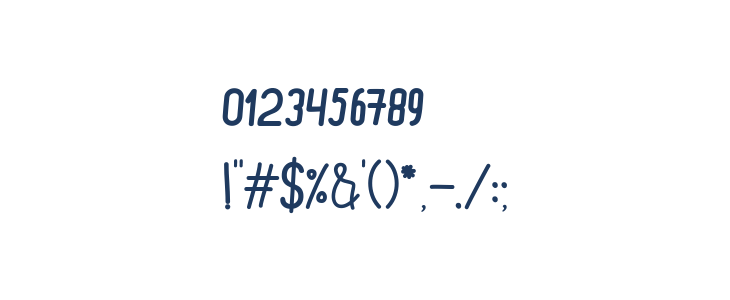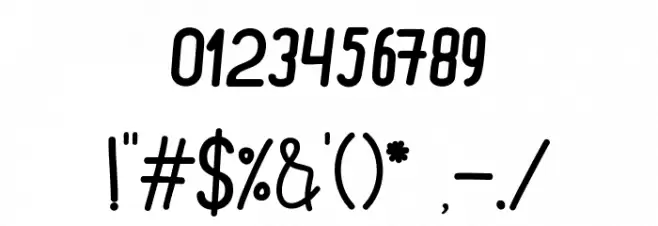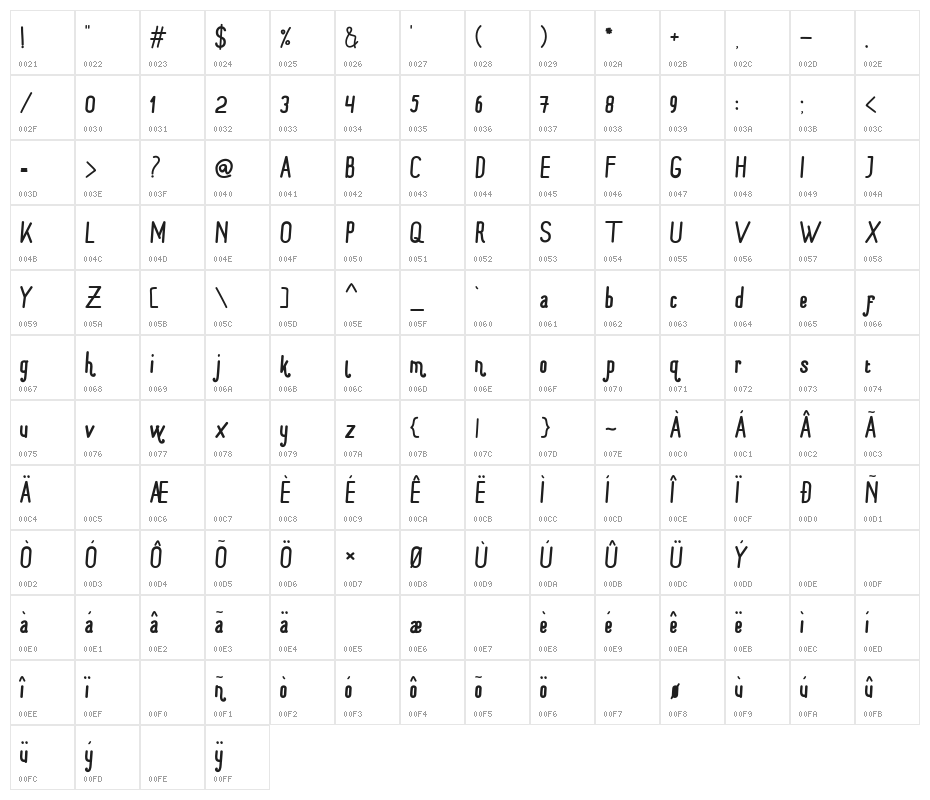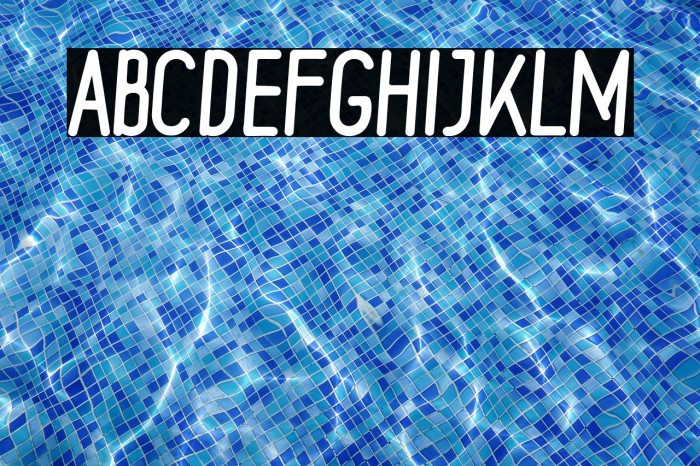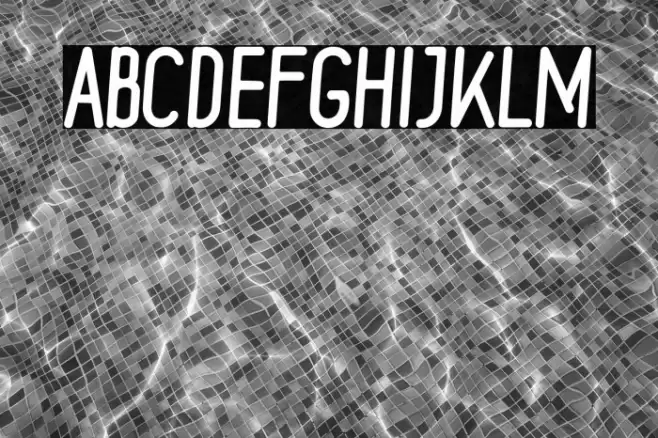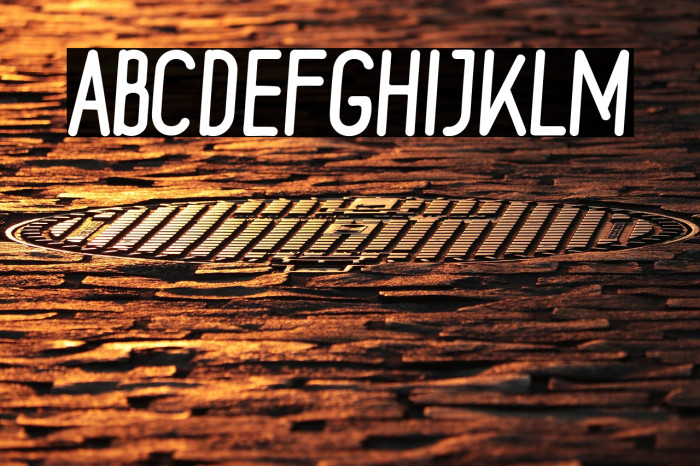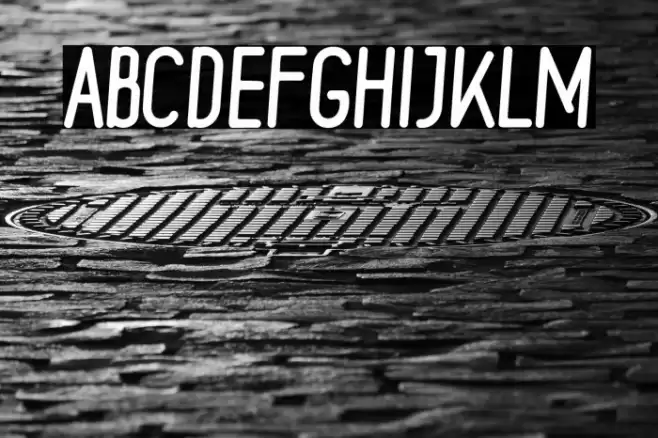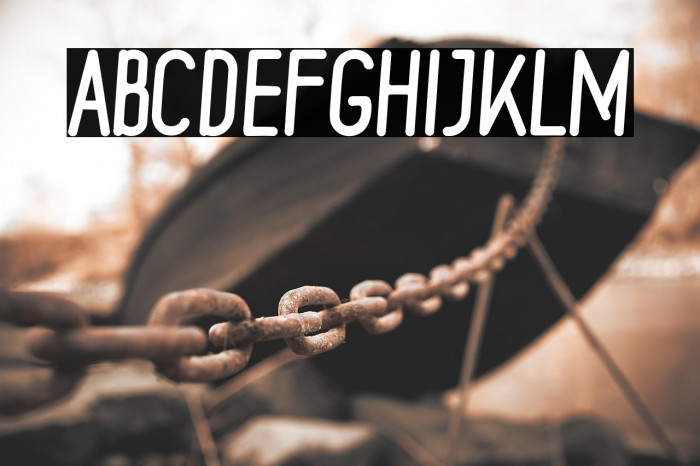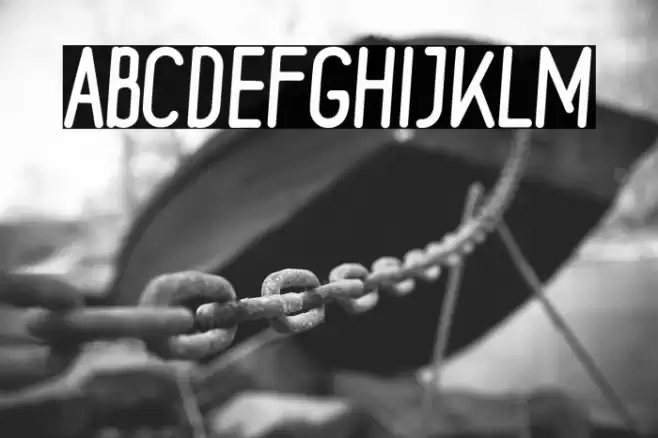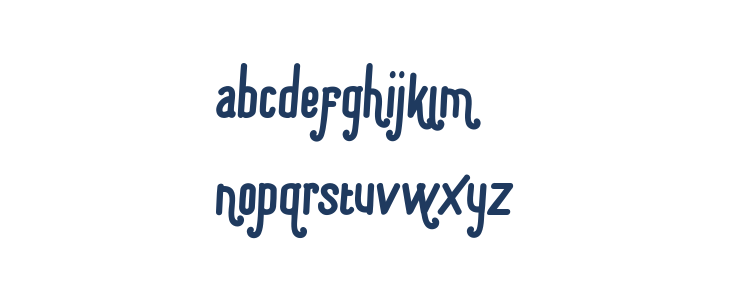
Moons Font
Moons Description
This font features a playful and modern design with a handwritten feel. The uppercase letters are bold and slightly condensed, giving a strong presence, while the lowercase letters have a unique, whimsical style with some characters featuring distinctive loops and curves. The numerals are consistent with the overall style, maintaining a balance between readability and decorative flair. Special characters are well-integrated, matching the playful yet structured aesthetic. The font's overall appearance is both approachable and stylish, making it suitable for a variety of creative applications.
| Proposed Projects | Ideal for branding, packaging, children's books, and creative posters. |